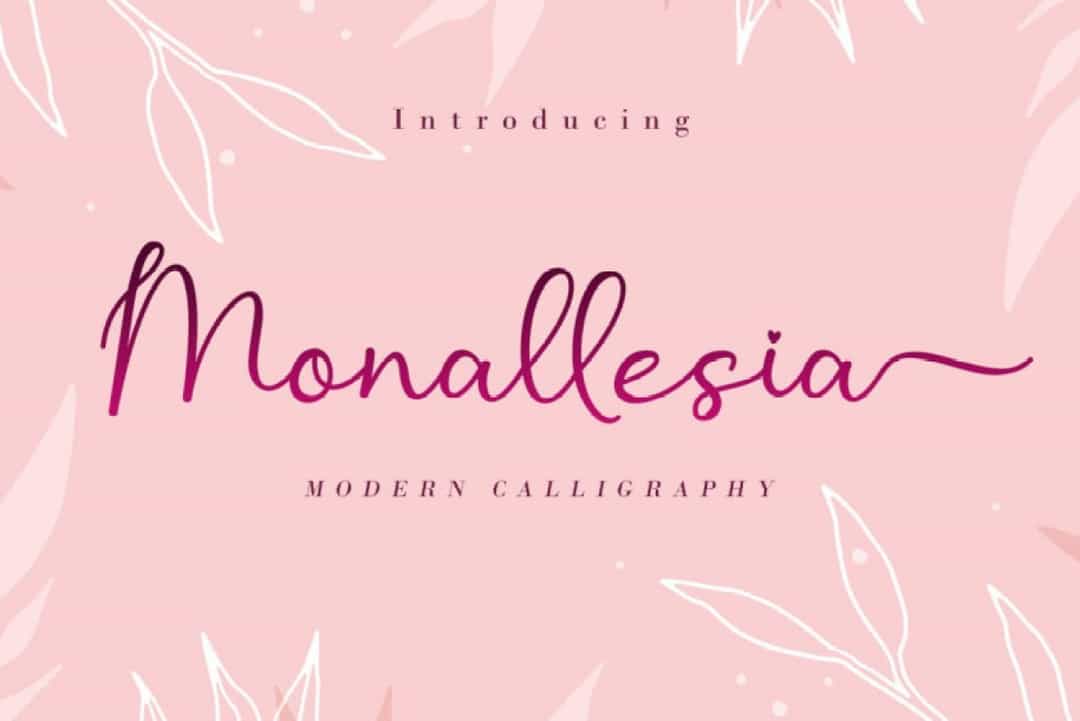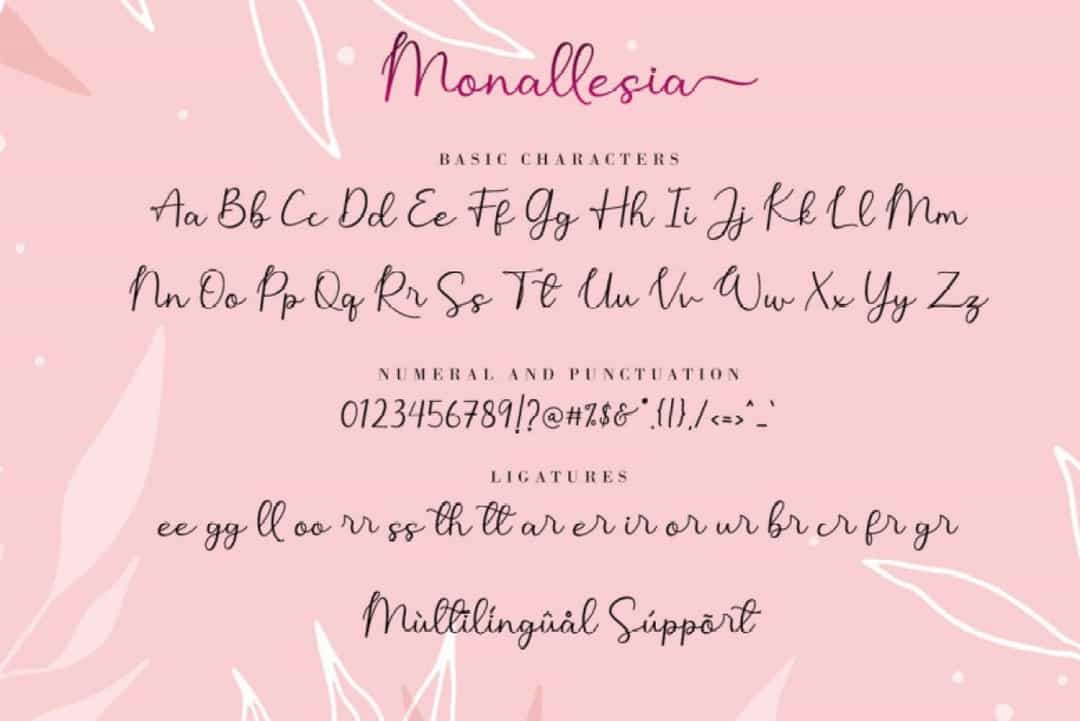
Monallesia has a classy and rather passionate feel to it and is a calligraphy typeface with some pretty characters and an energetic dance beat! Monallesia can be applied for creation of beautiful wedding invitations, the design of packages, mood boards, layouts for social networks and other editorial design tasks.